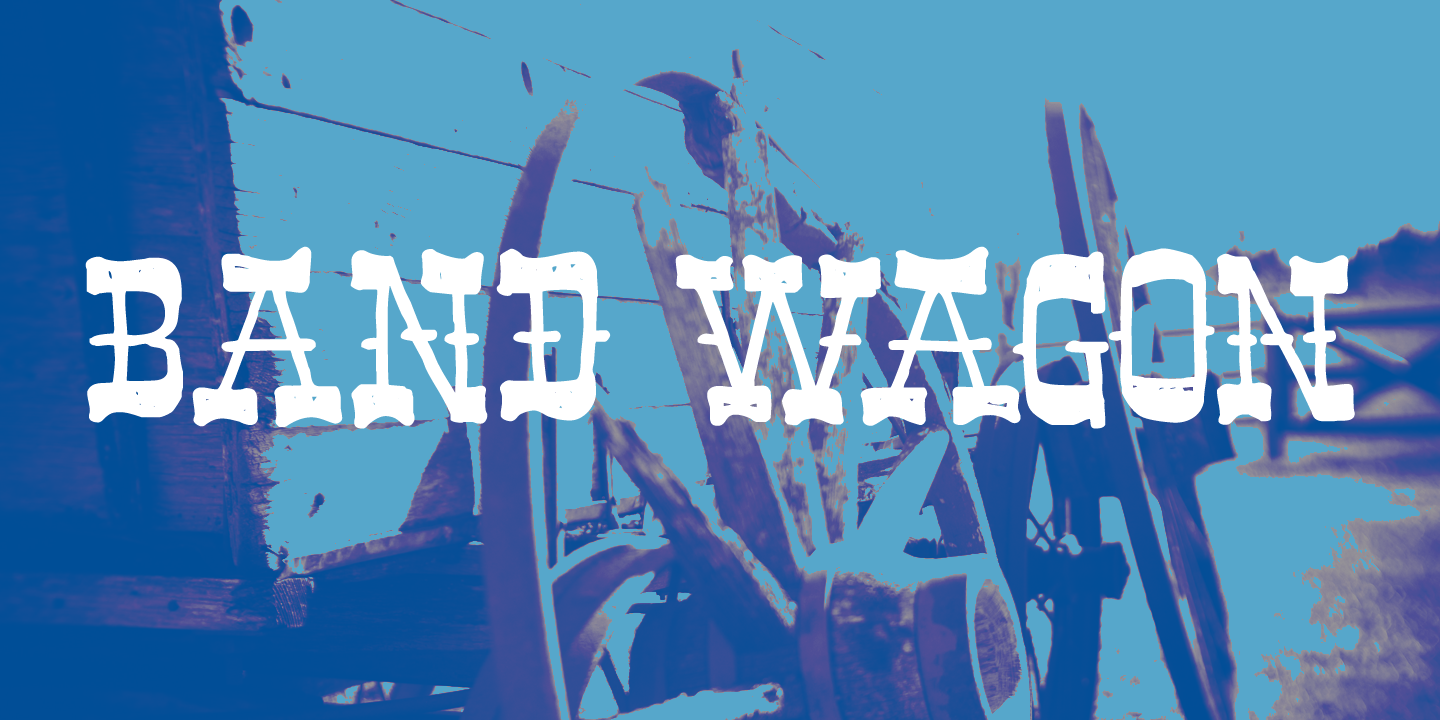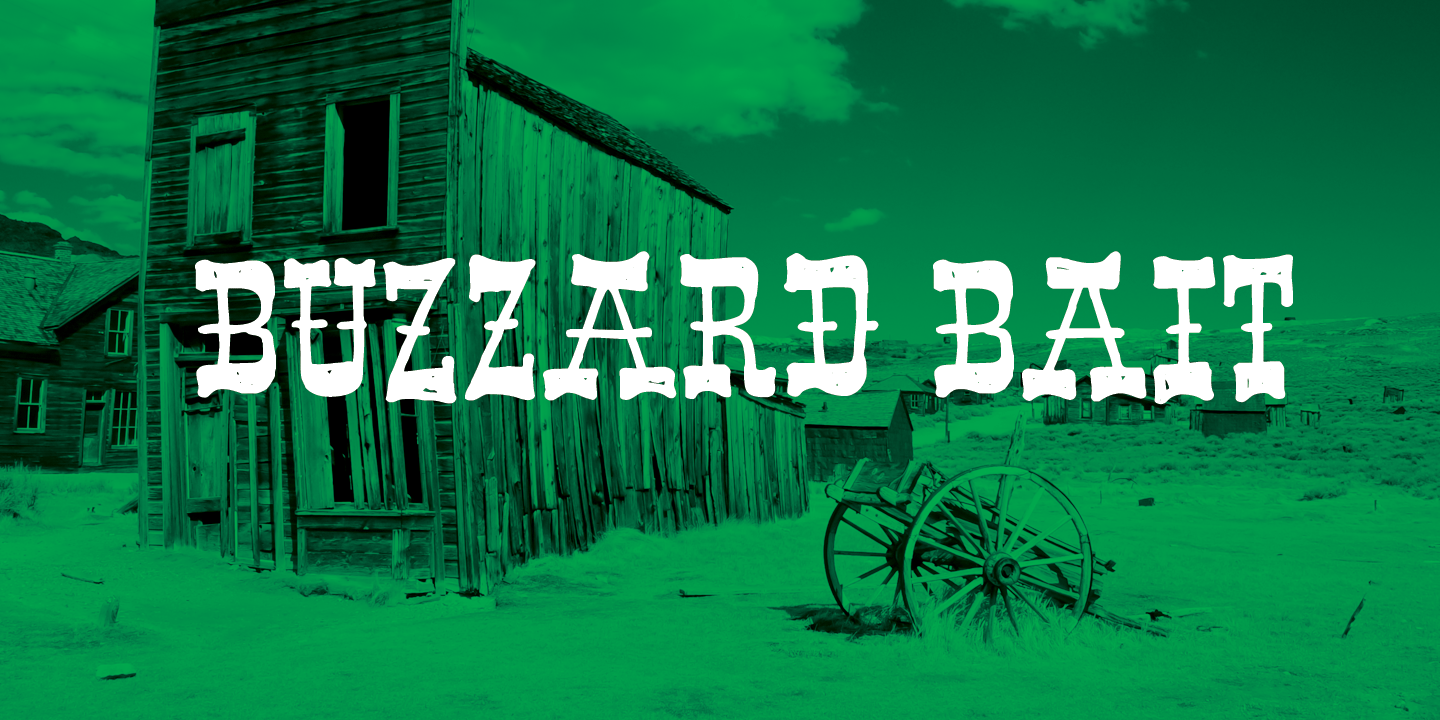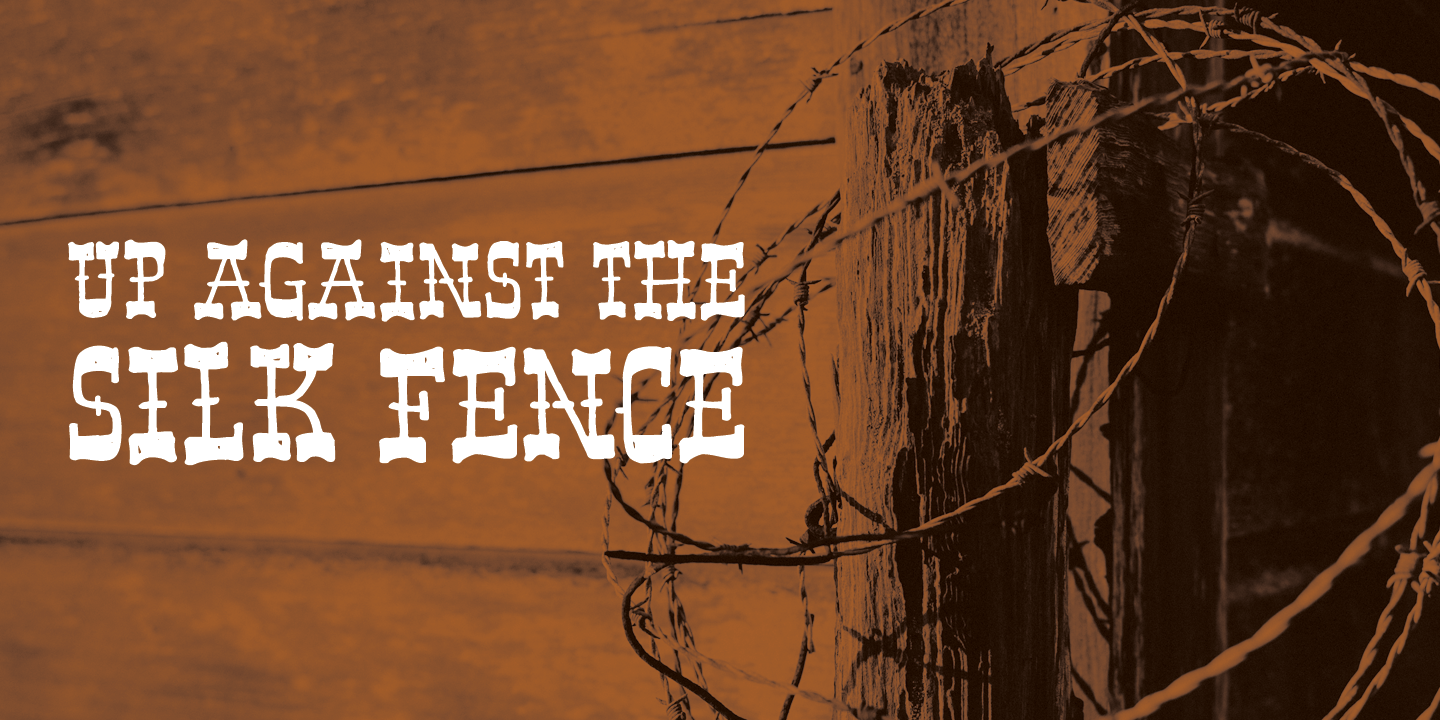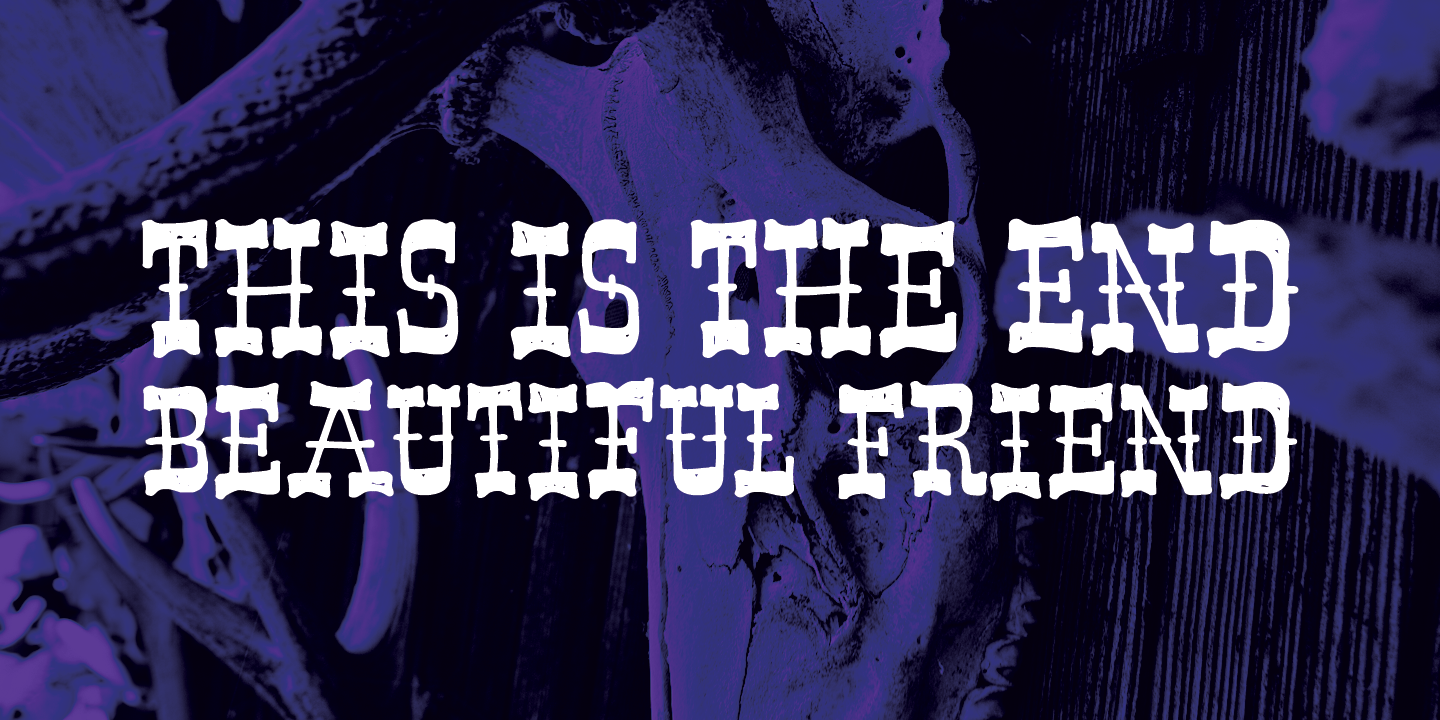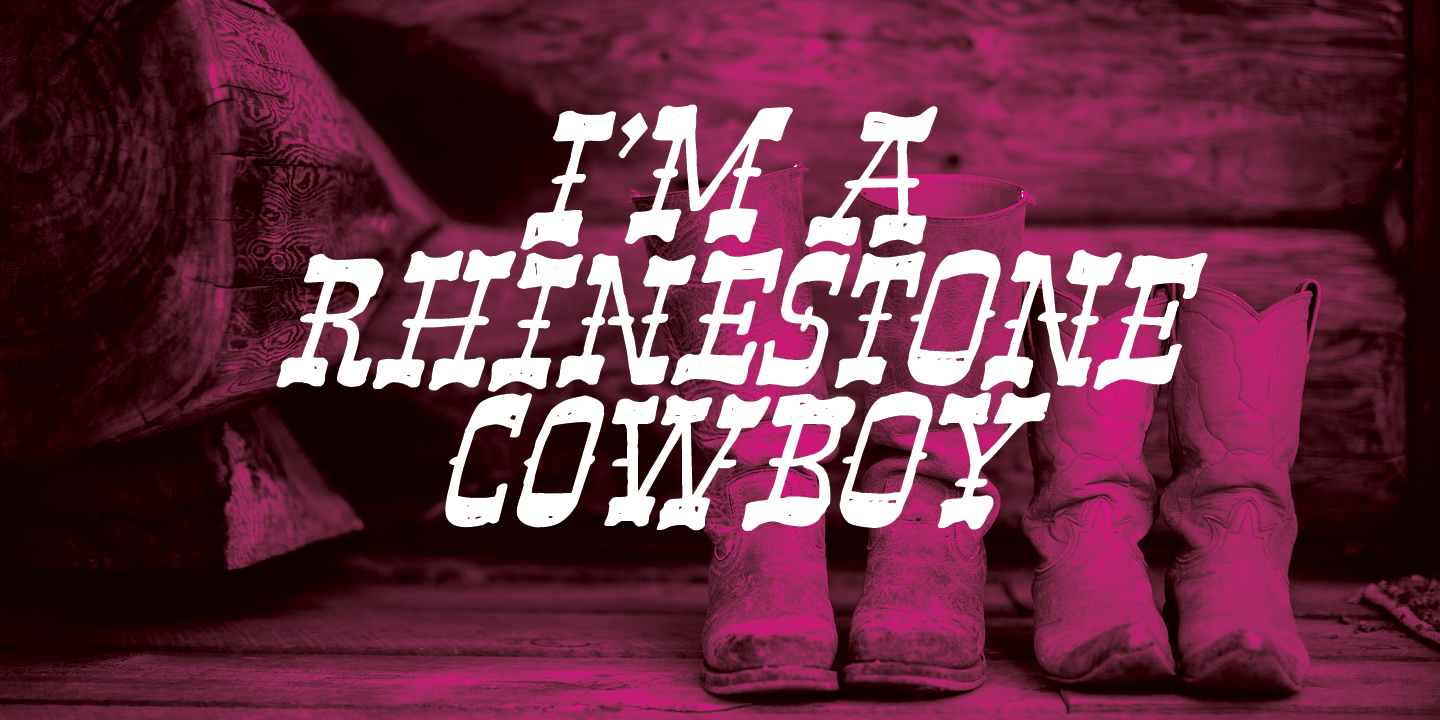
Band Wagon
I don't know why exactly, but I felt the need to create a Western font. Band Wagon is a handcrafted cowboy font. It comes with curly slabs, spurs and ye olde outlaw spirit.